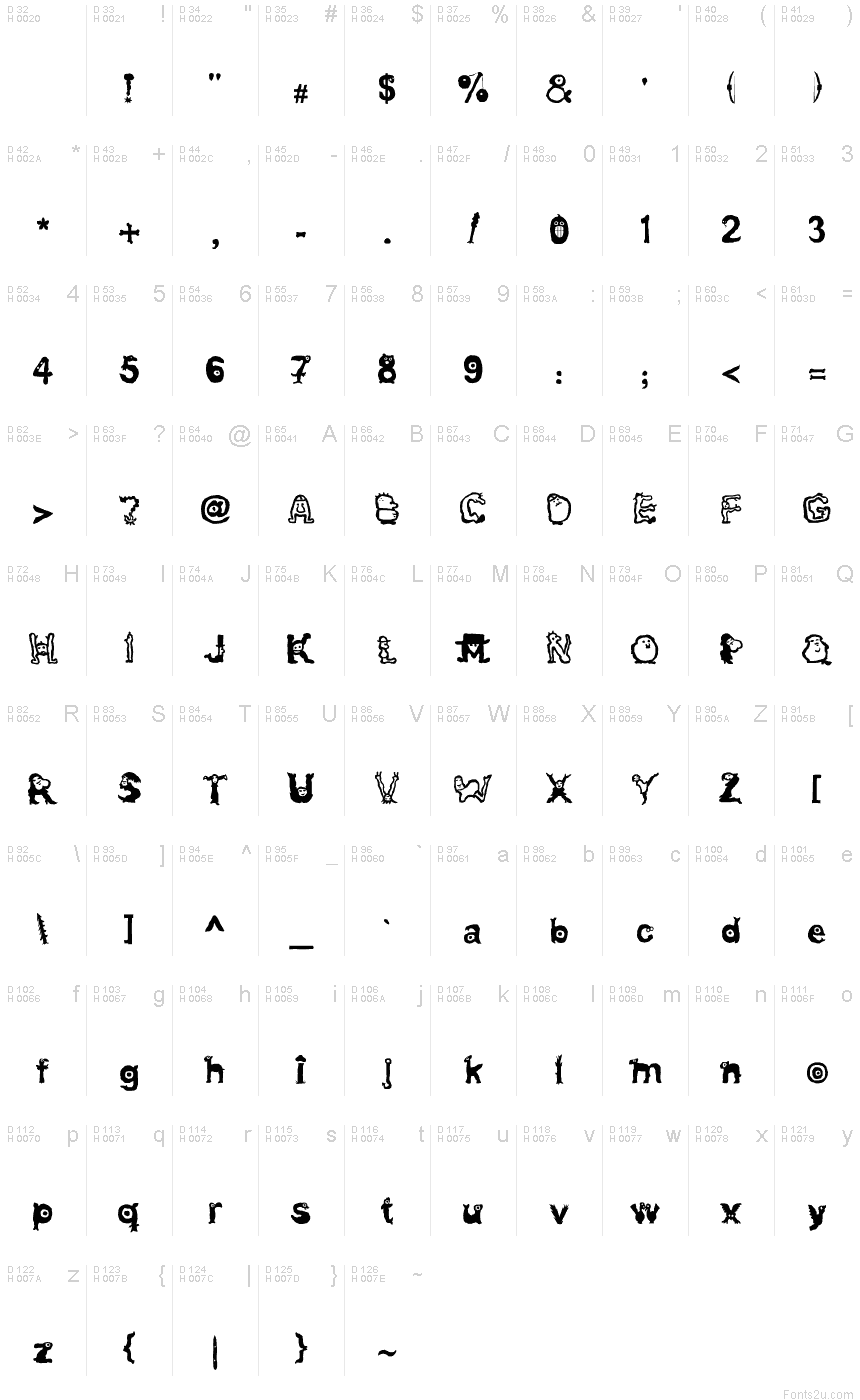
Morganismi, created by Heikki Morgan Hämäläinen of High-Logic.com, is a free cartoon display font built from lumpy, hand-drawn letters. Wide, uneven strokes make the forms look cut from ink or paper. Small eyes and face-like details turn several characters into comic creatures.
Monster stories and oddball humor make it a strong fit for children's book covers, game graphics, and Halloween event posters. It can also shape toy packaging and band merchandise.